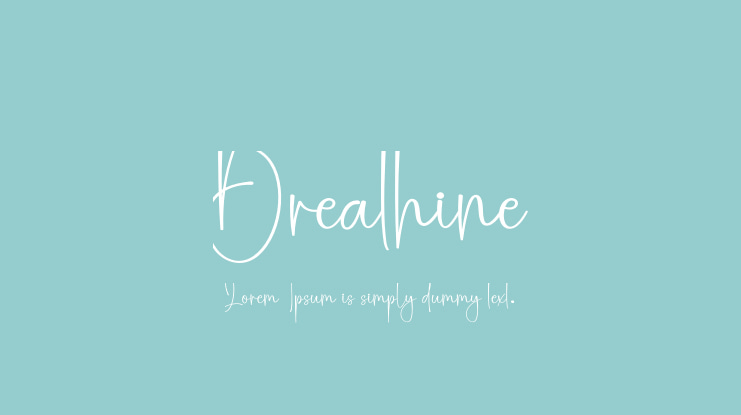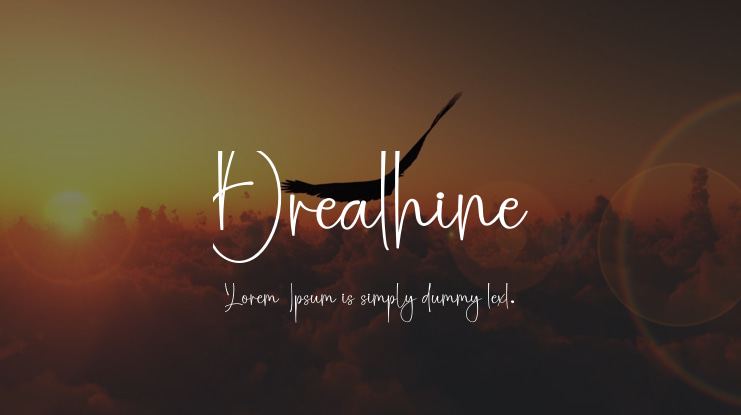
Breathine Font
The latest style of lettering is perfect for:
- Wall displays - Wedding invitations - Social media post logos - Advertisements - Product packaging and designs - Labels - Photography - Watermarks - Invitations - Stationery - Any project that requires tastefully crafted handwriting